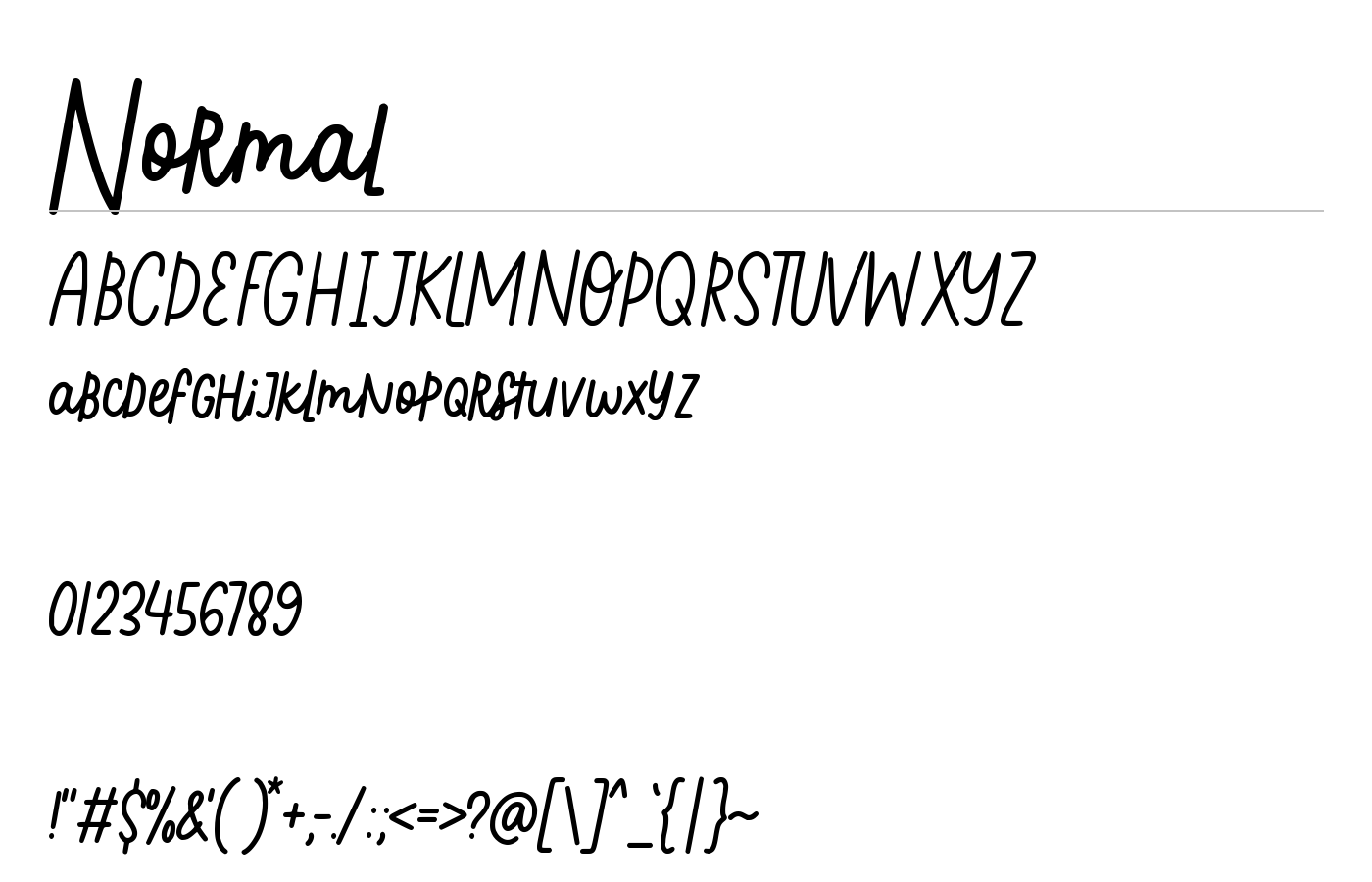
Andra Cookie is a playful and casual handwritten sans serif font with a tall, narrow structure and a friendly vibe. Its thin, smooth strokes and quirky letter shapes give it an approachable, informal feel, making it perfect for creative projects, personal branding, or packaging that seeks a warm and unique touch. This font works well in headlines and logos where personality and charm are key.
Andra Cookie Font